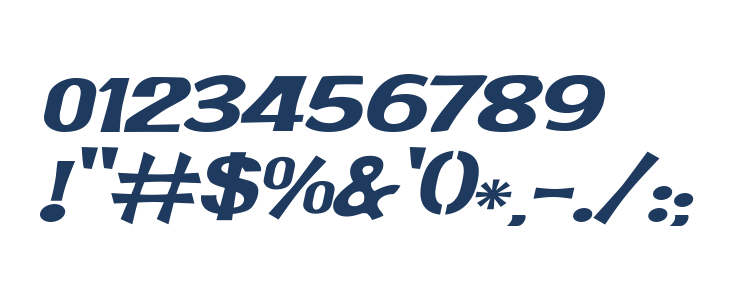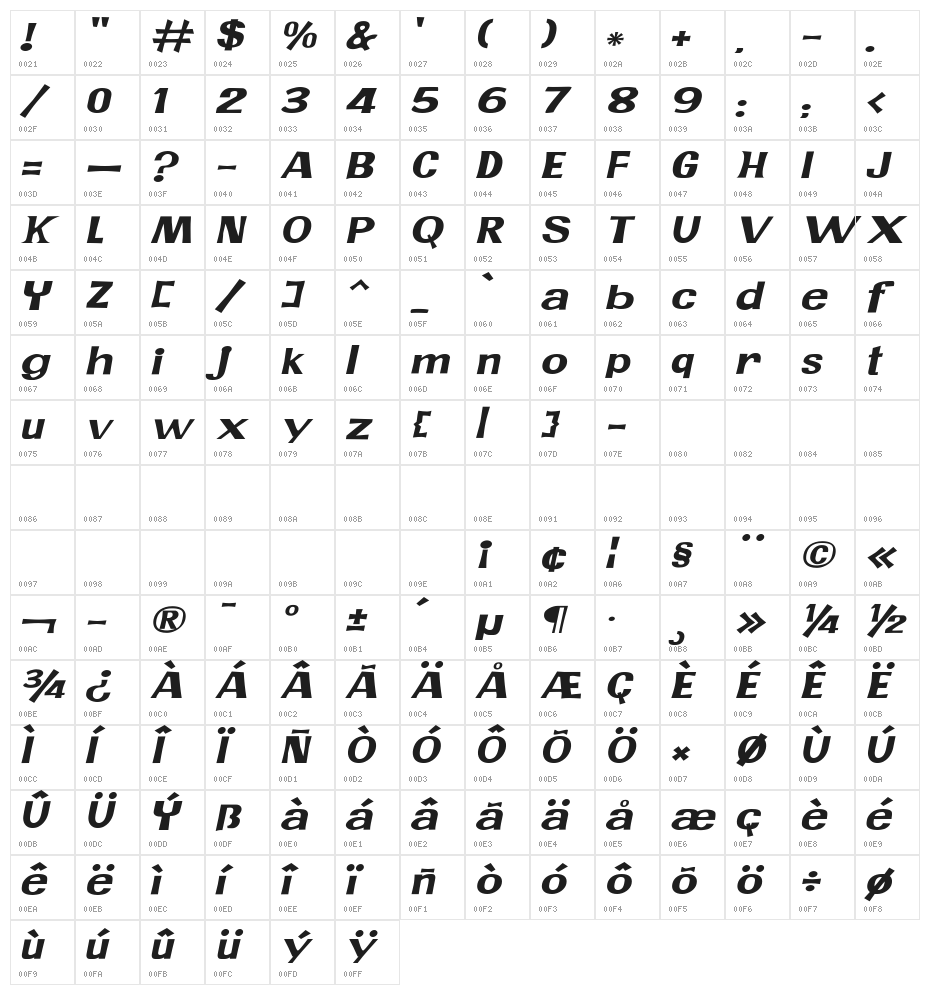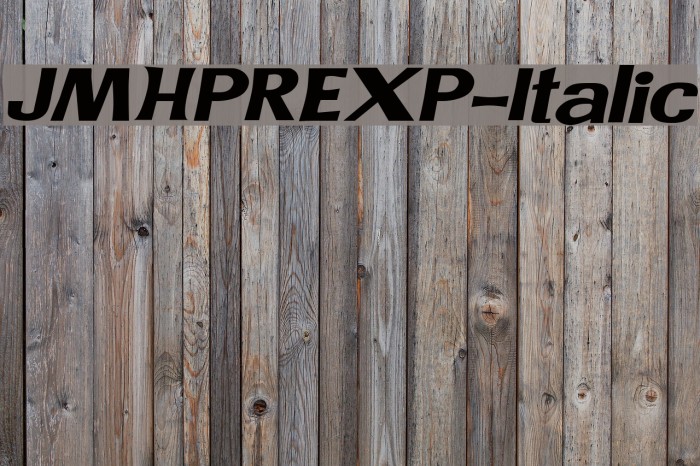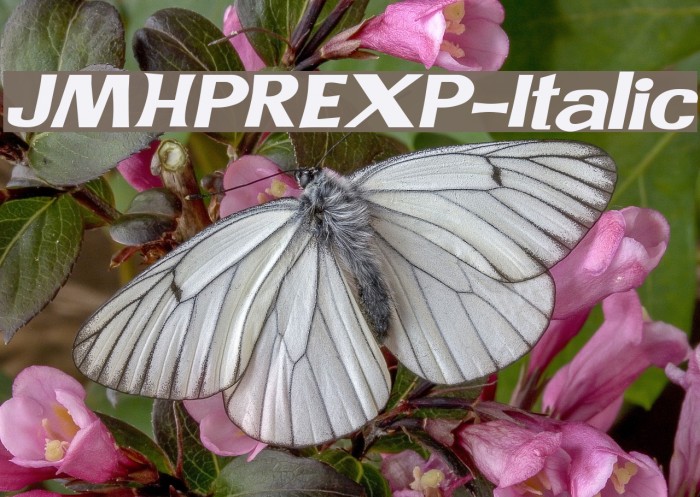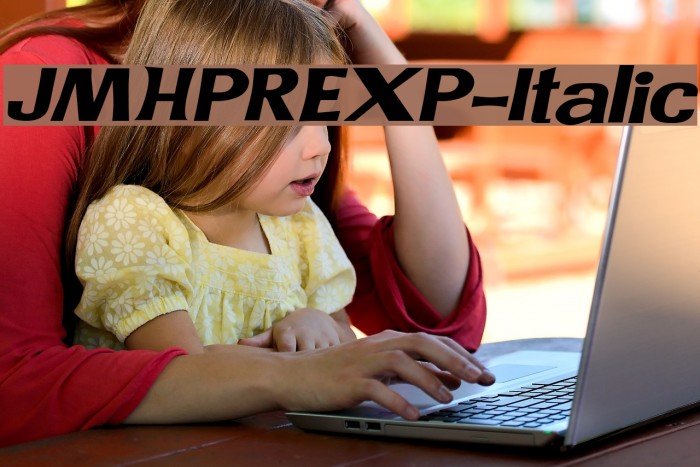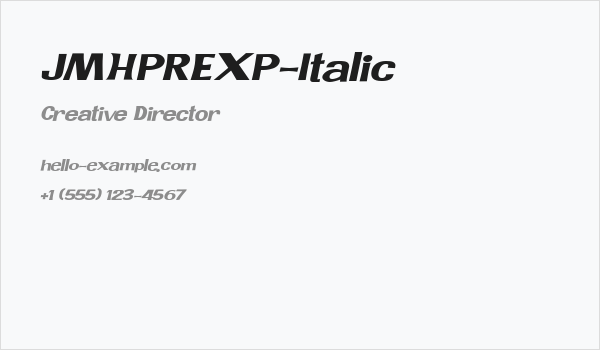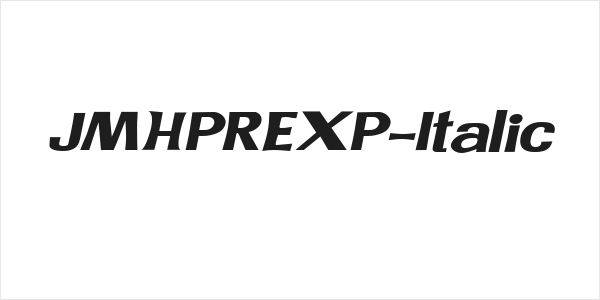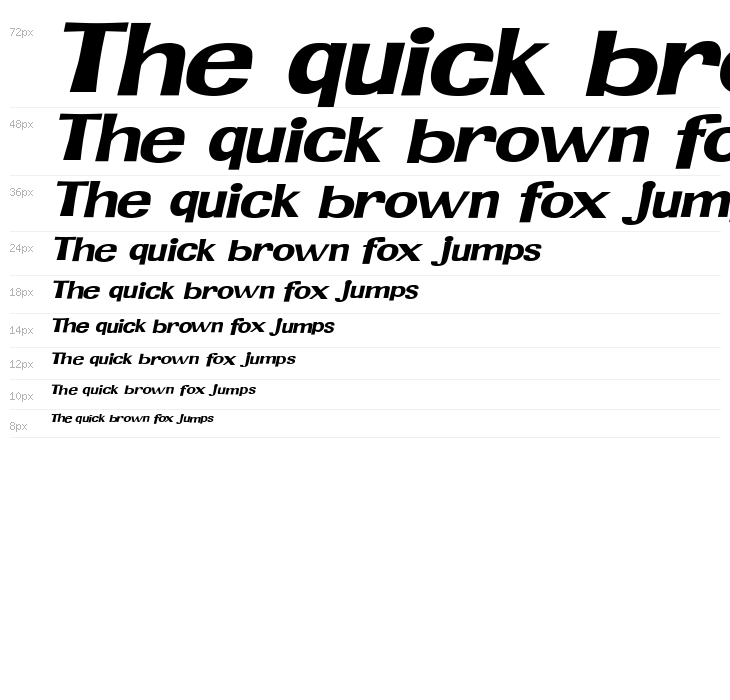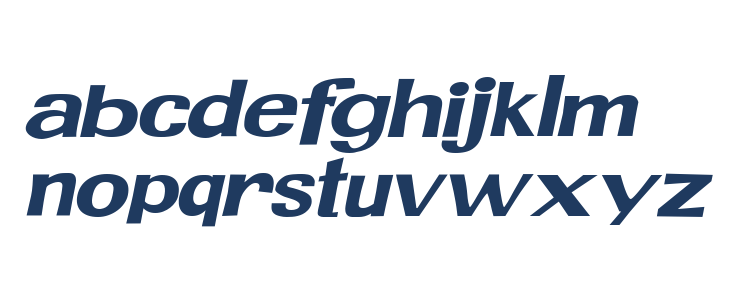
JMHPREXP-Italic Font
JMHPREXP-Italic Description
This font features a bold and dynamic italic style, characterized by its strong slant and robust letterforms. The uppercase letters are prominent with a distinct forward tilt, giving a sense of motion and urgency. The lowercase letters maintain a consistent slant, complementing the uppercase with a cohesive look. Numbers are bold and clear, ensuring readability. Special characters are well-integrated, maintaining the font's overall aesthetic. The font's design is modern and impactful, suitable for making statements.
| Use Case | Headlines, Logos, Advertising |
| Proposed Projects | Ideal for sports branding, dynamic advertising, and headlines that need to capture attention. |